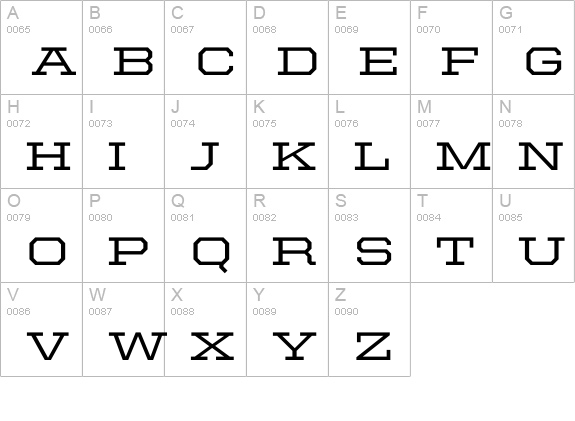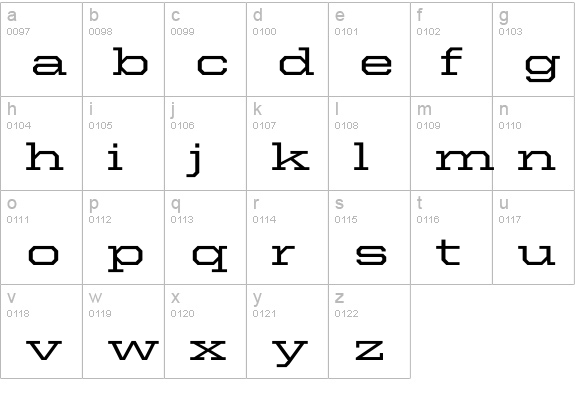
United Serif Ext Medium Font Details
United Serif Ext Medium is a balanced, medium-weight variant in the United typeface family \xE2\x80\x94 well suited to sub-headlines, navigation, and balanced editorial work.
United Serif Ext Medium is a modern and versatile typeface that exudes elegance and professionalism. With its sleek lines and balanced proportions, this font is perfect for a variety of design projects including branding, advertising, and editorial layouts. This typeface features a medium weight, making it ideal for headlines and body text alike. Its extended character set provides support for multiple languages, ensuring that your message can be effectively communicated to a global audience. What sets United Serif Ext Medium apart is its unique blend of sophistication and accessibility. It strikes the perfect balance between traditional serif elements and contemporary design trends, resulting in a font that is both timeless and on-trend. One of the best things about United Serif Ext Medium is that it is free to download at FontsMarket.com. This means that you can easily access and utilize this stunning typeface without any financial barriers. Whether you are a professional designer or an aspiring enthusiast, this font is readily available for you to enhance your creative endeavors. So why wait? Take advantage of the incredible versatility and beauty of United Serif Ext Medium. Download it for free at FontsMarket.com and elevate your designs to new levels of excellence.